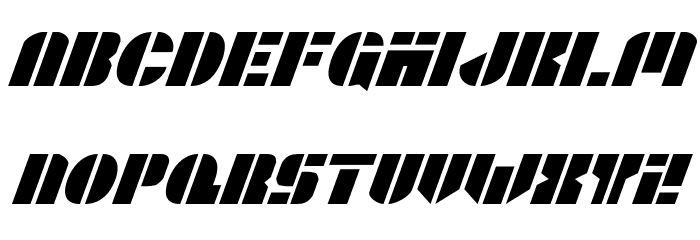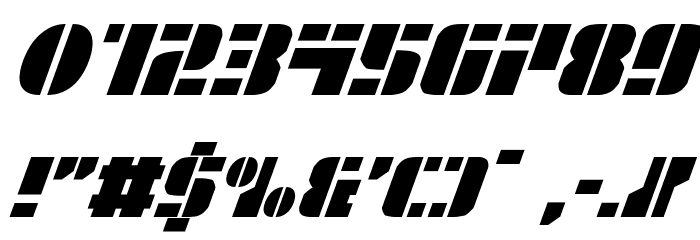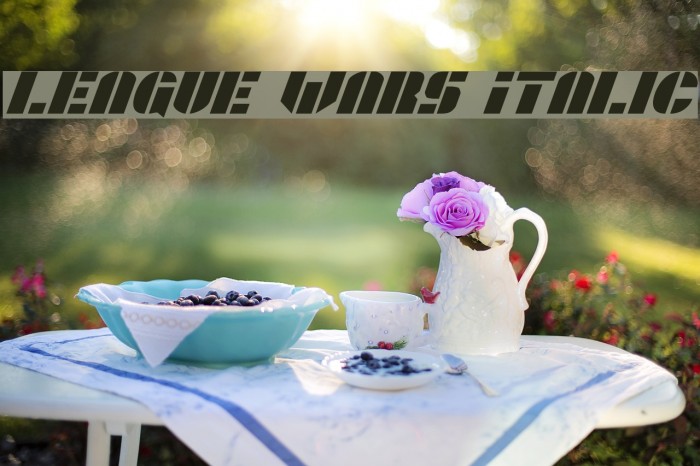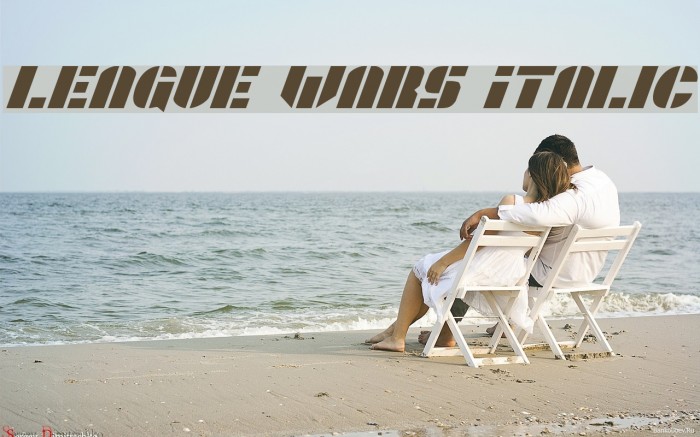
League Wars Italic Font
This font features a bold, italicized style with a futuristic and dynamic appearance. The characters are designed with sharp angles and a distinct slant, giving them a sense of motion and energy. The strokes are thick and consistent, creating a strong visual impact. The uppercase and lowercase letters maintain a uniform style, with the uppercase being slightly more pronounced. Numbers and special characters are designed to match the bold and angular aesthetic, ensuring a cohesive look across all text. The overall design is modern and eye-catching, suitable for projects that require a bold statement.
- Proposed Projects: Ideal for sports branding, video game titles, sci-fi themed posters, and dynamic logo designs.